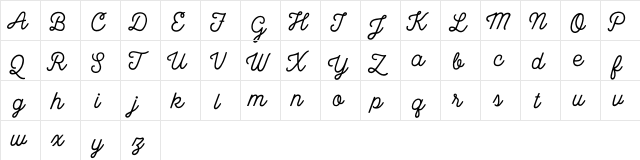
Local Brewery Two
| Foundry | Cultivated Mind |
| Designer | Cindy Kinash |
Design Context for Local Brewery Typeface
Local Brewery is a composed and adaptable typeface that performs quietly and consistently across a wide range of design contexts.